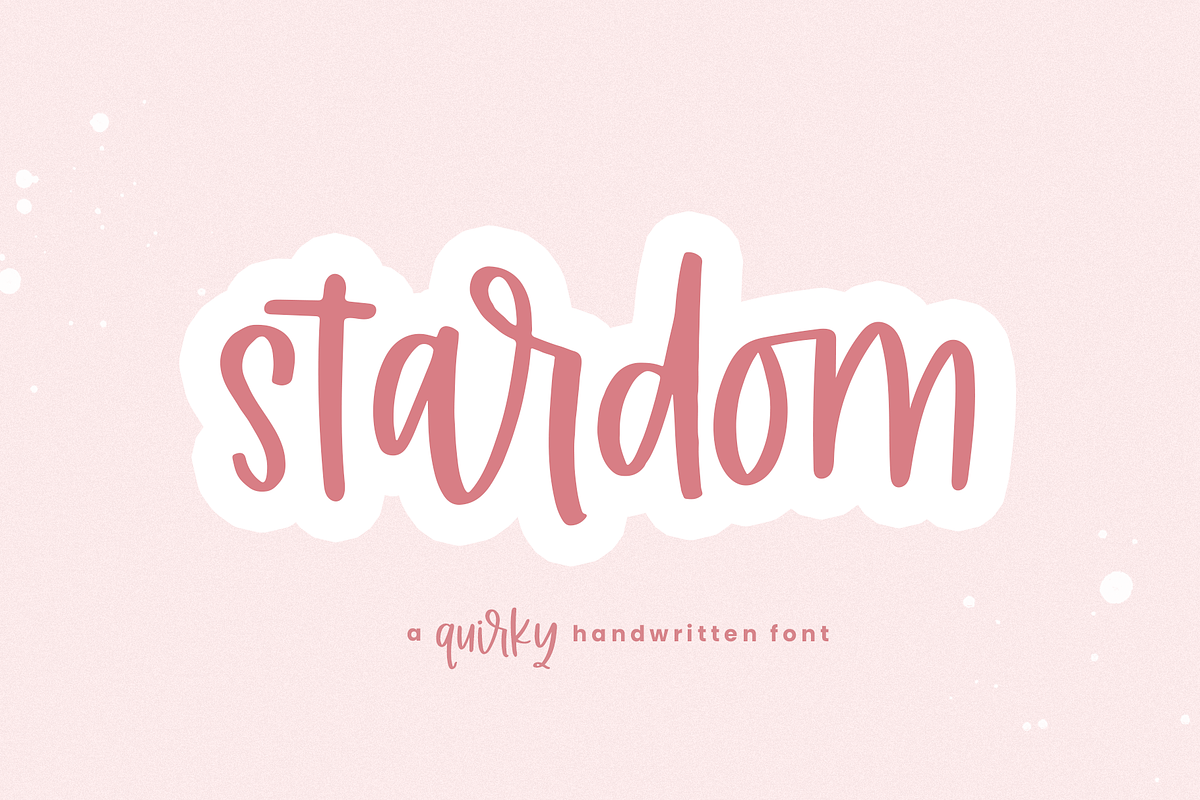
Stardom | Handwritten Font Free Download is a stylish and flowing handwritten script that blends casual elegance with modern personality. With its smooth curves, natural slant, and authentic pen-like strokes, this font is perfect for branding, signatures, social media posts, fashion blogs, wedding invitations, and lifestyle products.
Designed to feel personal and aspirational, Stardom | Handwritten Font Free Download adds charm and sophistication to any project without losing its laid-back vibe. It works beautifully as a stand-alone type or paired with minimal sans serifs for a clean, professional look.